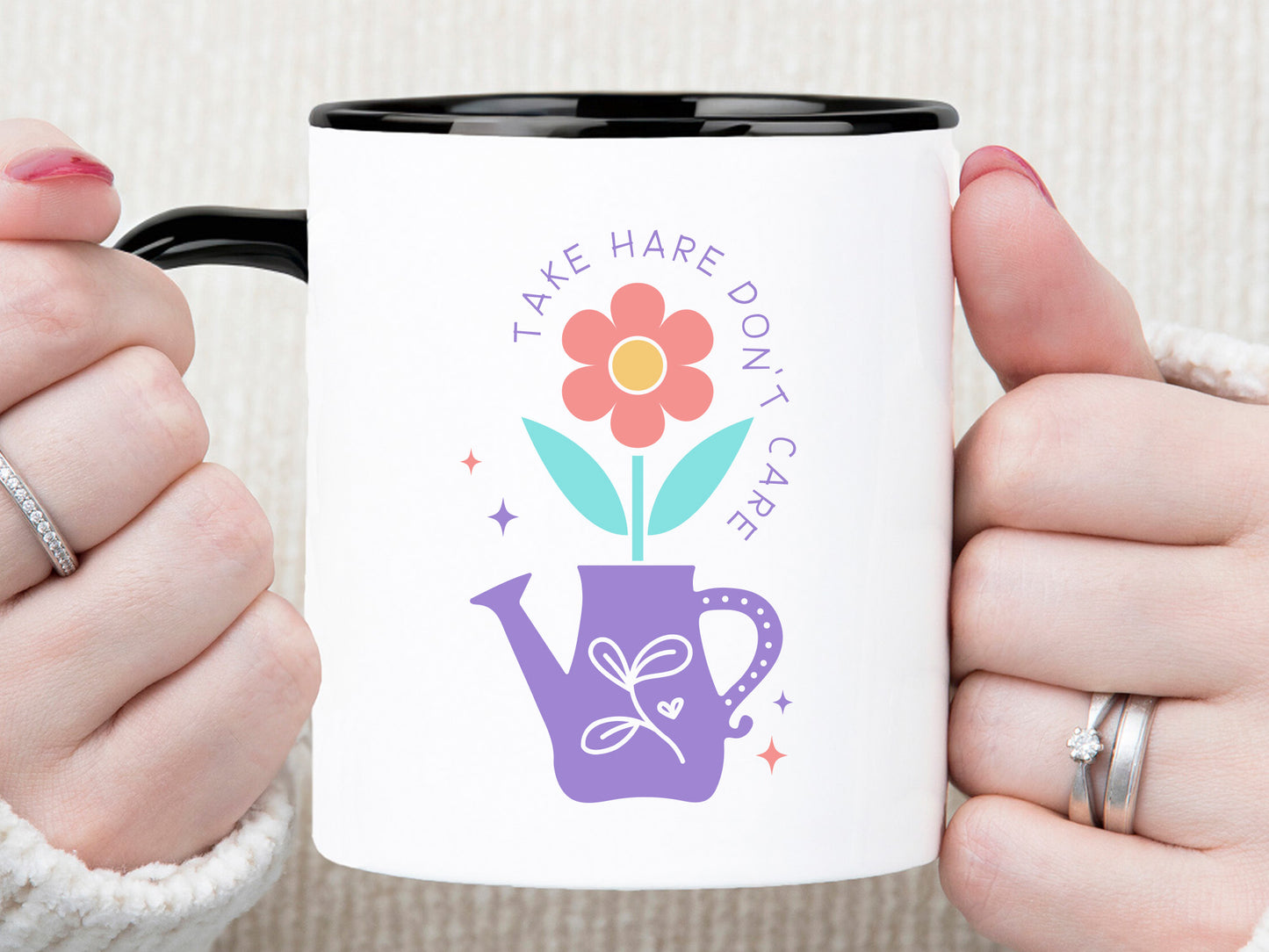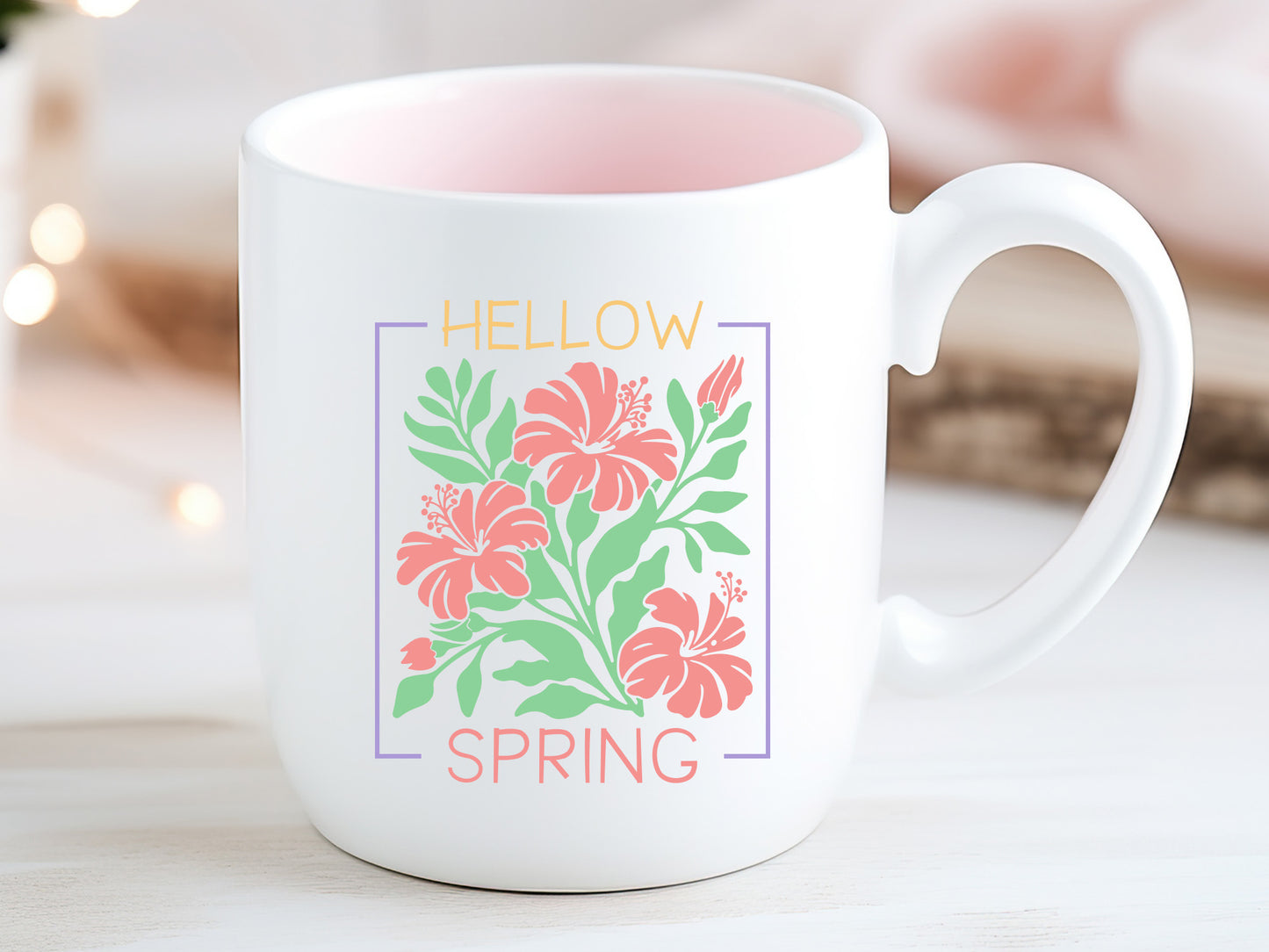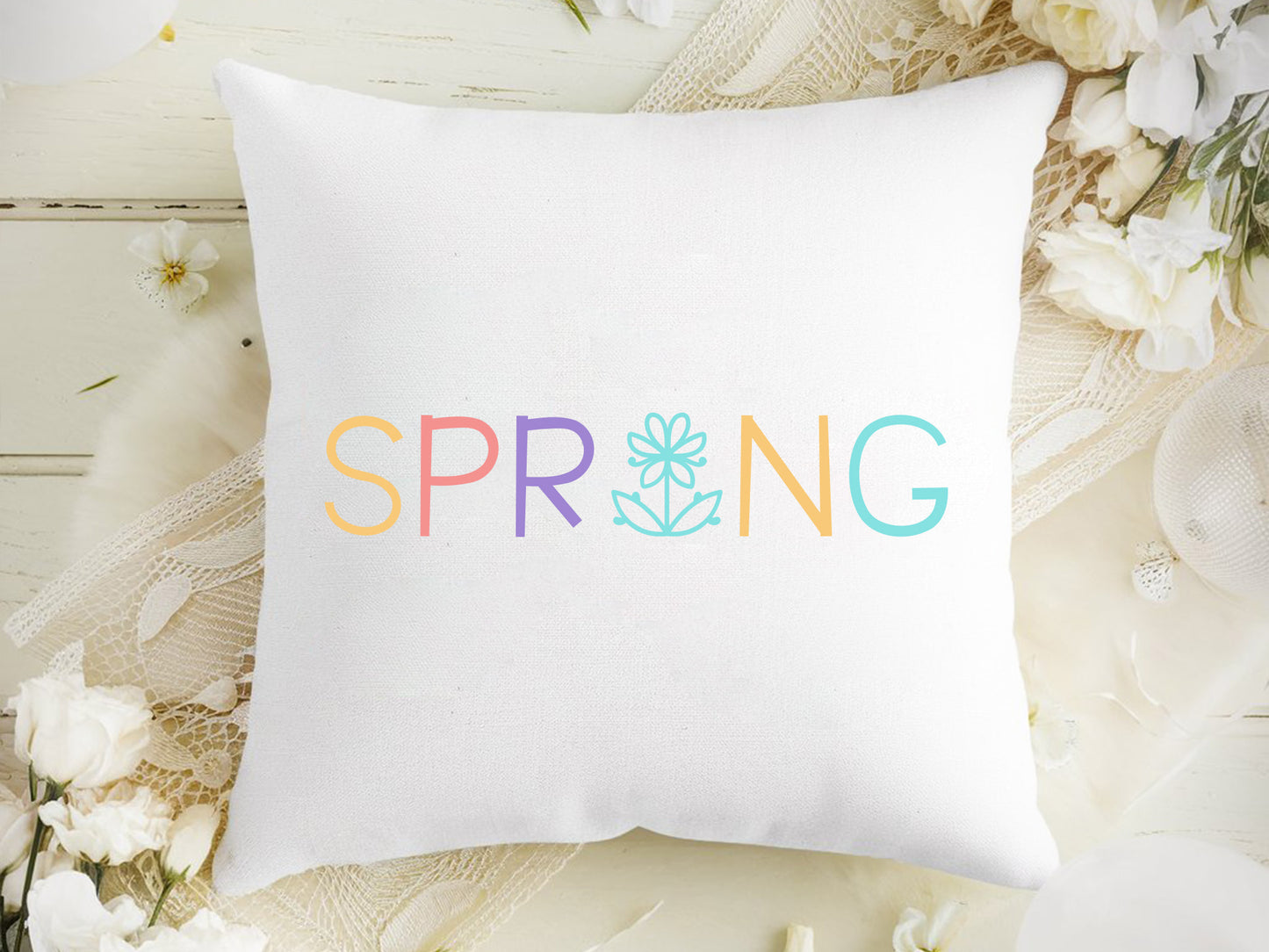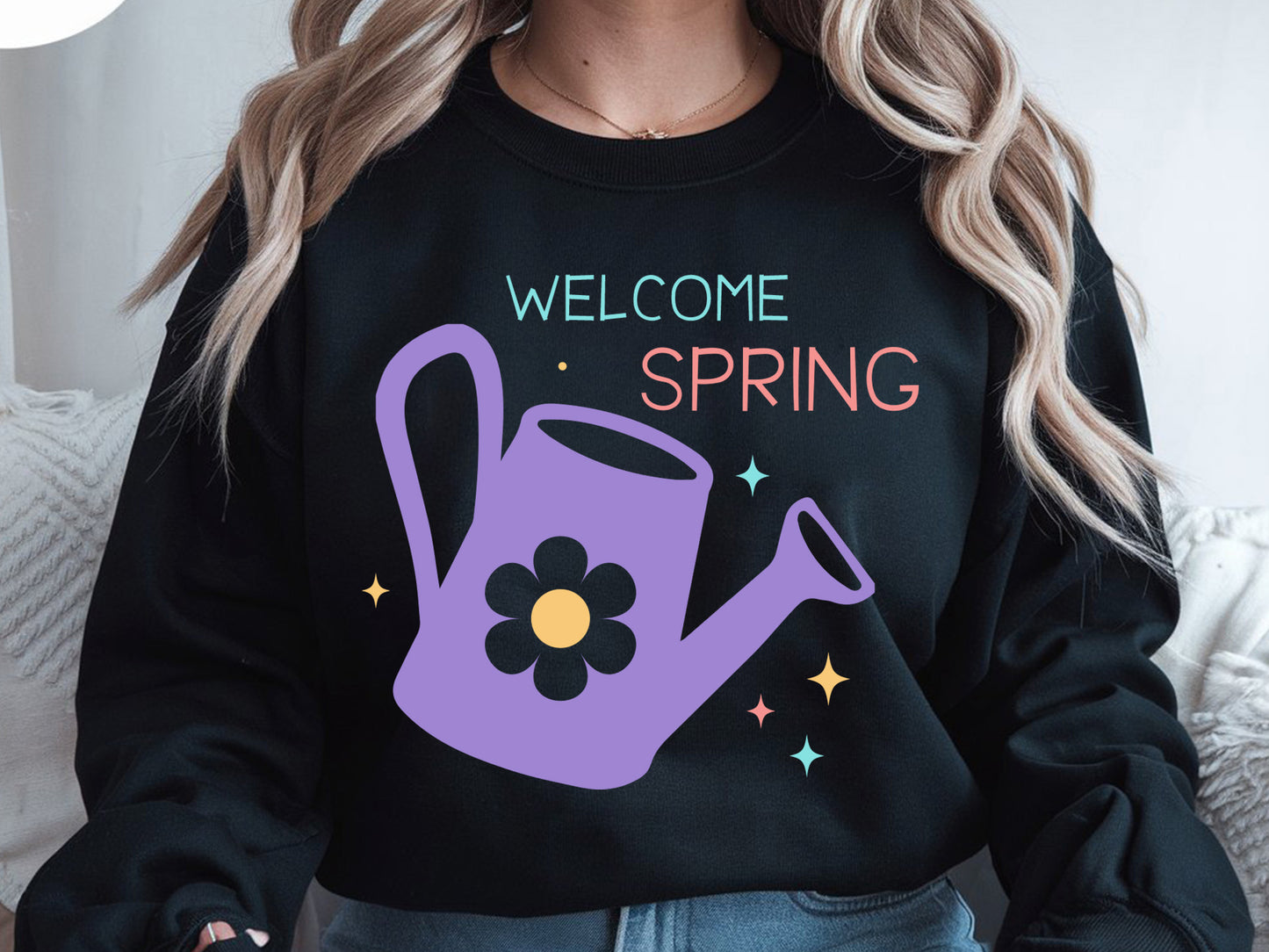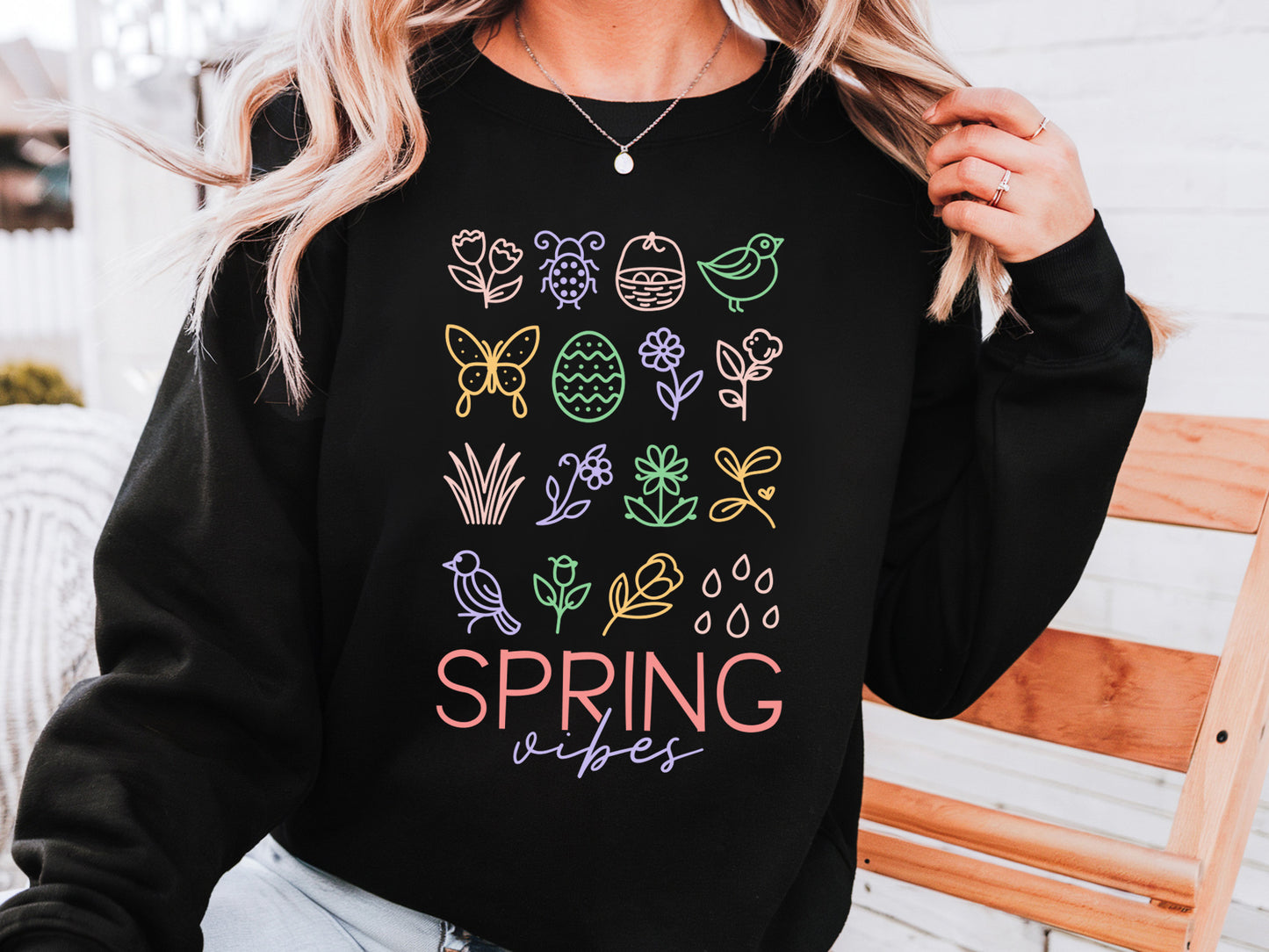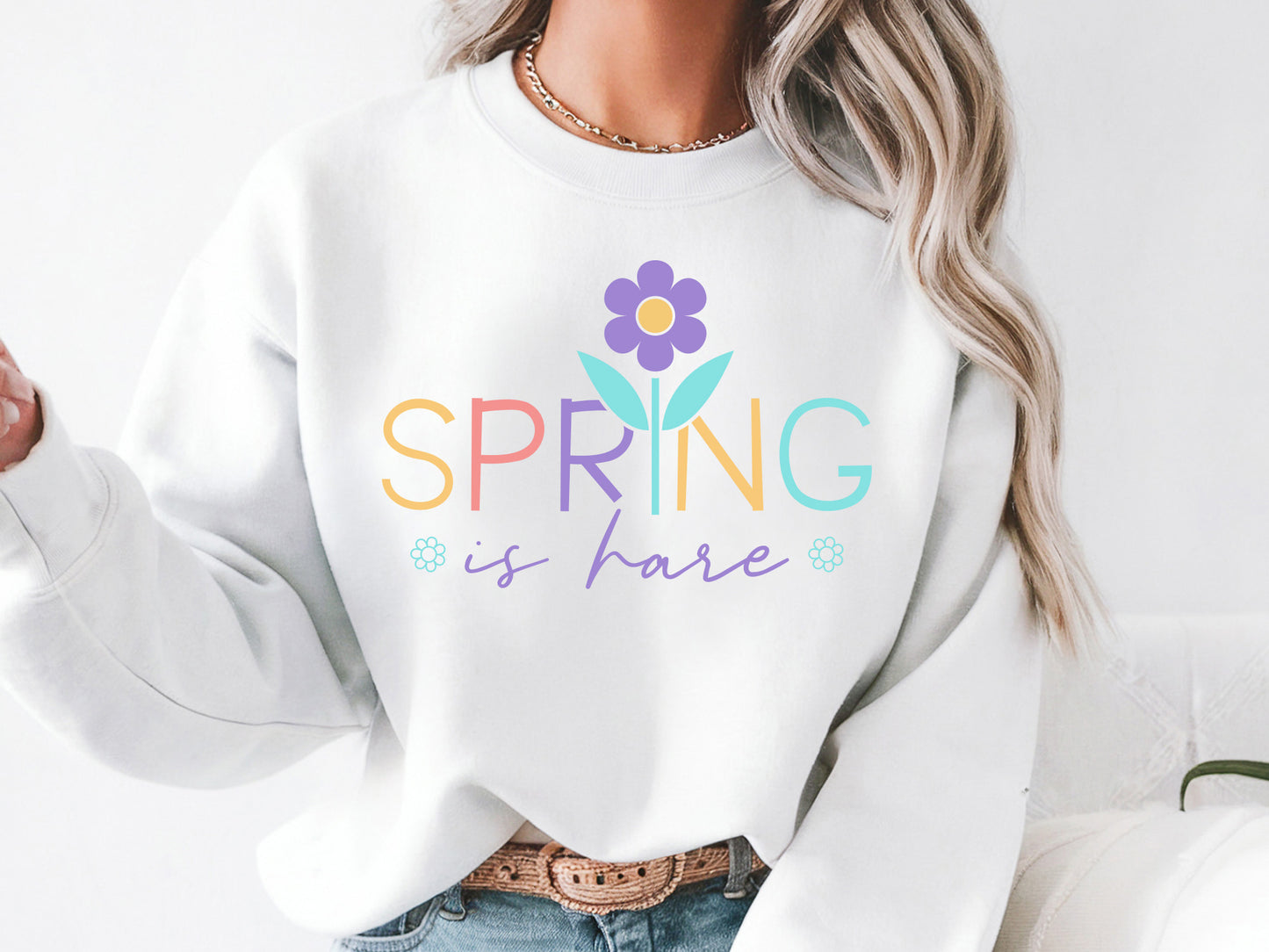
Spring Wonder - A Quirky Handwritten Font
Spring Wonder is a lovely and quirky handwritten spring font! This playful and charming typeface is just what you need for all your crafting, branding, and seasonal design projects. Whether you're creating spring-themed invitations, greeting cards, quotes, t-shirts, mugs, tote bags, or social media graphics, it brings a cute and cheerful vibe to everything you create. With its unique hand-drawn style, Spring Wonder is perfect for crafters, designers, and all kinds of creatives. Plus, it comes in TTF and OTF formats, making it fully compatible with popular design software like Cricut, Silhouette, Canva, Photoshop, Illustrator, and more.